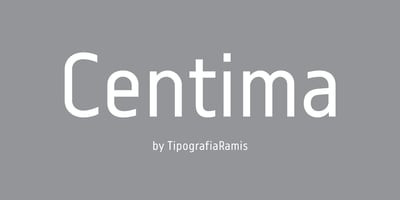
Looking to imbue your designs with a sense of sharp modernity, precise clarity, and minimalist sophistication? Centima Font Free Download offers an excellent opportunity to explore a sleek and highly versatile sans-serif typeface. It's crucial to remember, however, that while a Centima Font Free Download might be available for personal and testing purposes, a commercial license is required for any professional or revenue-generating projects. This ensures legal compliance and provides essential support to the talented font designers.
The Centima Font is exceptionally versatile and shines in a wide array of applications where clean aesthetics, outstanding legibility, and a contemporary feel are paramount. Its often geometric or neo-grotesque design with precise curves and balanced proportions makes it an ideal choice for corporate branding, sophisticated website interfaces, and professional presentations. It excels as body text in reports, technical documentation, and digital publications, ensuring effortless readability across diverse platforms. Furthermore, consider Centima Font for UI/UX design, app development, and extensive editorial layouts where a consistent, clean, and highly functional typeface is needed. Its robust character also makes it perfect for signage, information graphics, and large-scale displays.
What makes the Centima Font so exciting is its remarkable blend of understated elegance and uncompromising functionality. It often features neutral yet distinct letterforms that are designed for optimal readability at various sizes, making it a true workhorse font. This characteristic allows it to communicate a sense of authority, precision, and modernity, ensuring your message is communicated with absolute clarity and impact. It’s a font that doesn't just look good; it performs exceptionally, providing a reliable and elegant foundation for any serious design project. Its sophisticated simplicity ensures your work will appear polished, trustworthy, and highly effective.
The Centima Font family typically boasts a comprehensive range of weights, making it incredibly adaptable for complex typographic hierarchies. You'll often find an extensive selection, from Hairline and Thin to Light, Regular, Medium, SemiBold, Bold, ExtraBold, and Black, usually accompanied by corresponding italic styles. This broad spectrum of weights, coupled with potential condensed or extended versions, provides designers with immense flexibility to create visually rich and harmonized layouts while maintaining a cohesive and professional brand identity across all touchpoints.